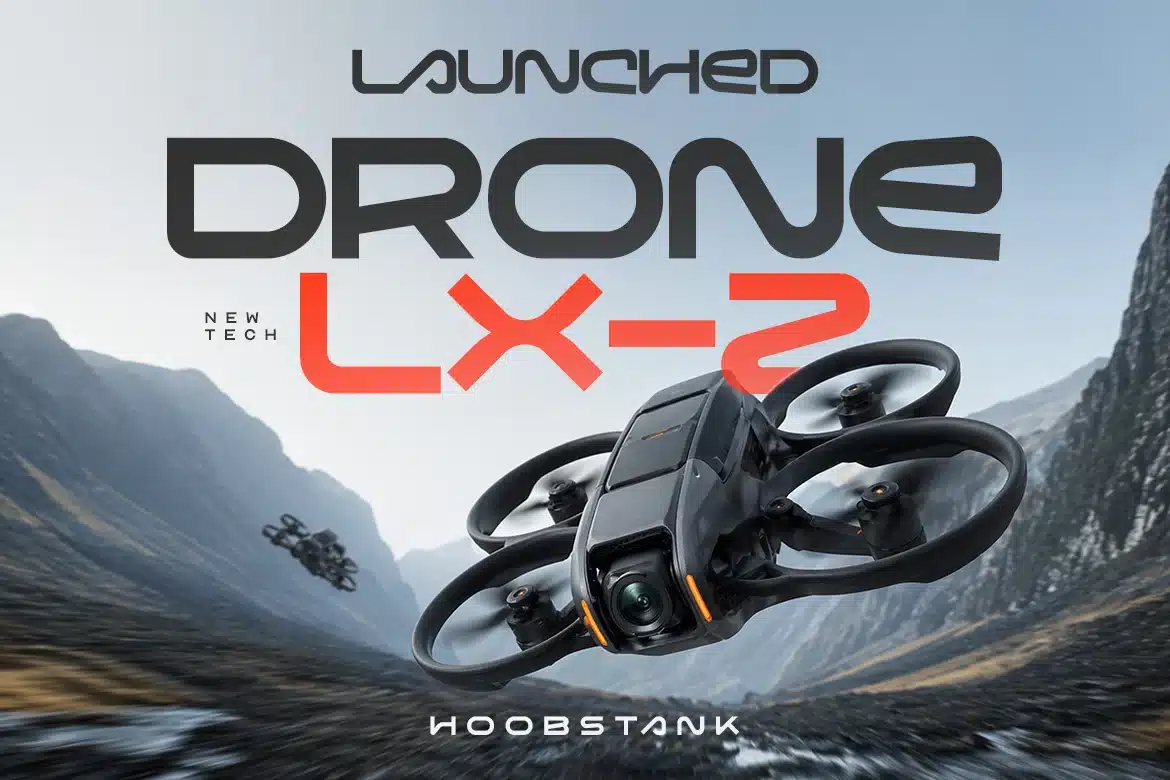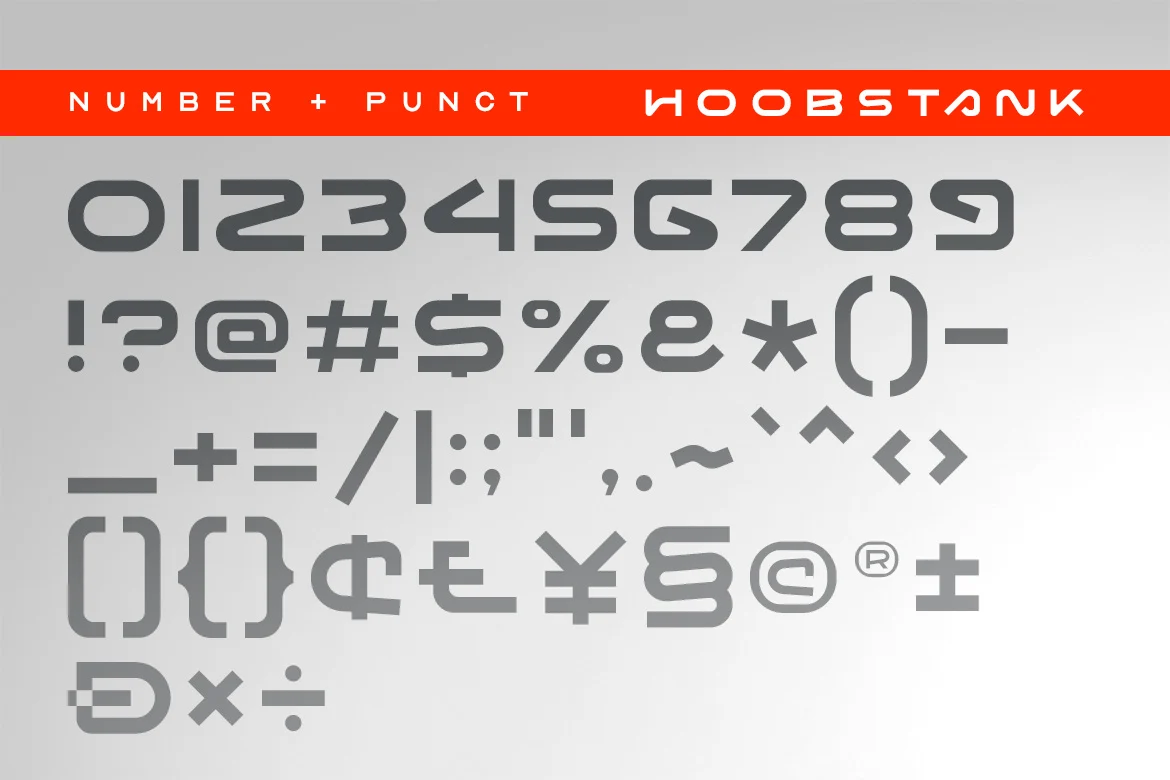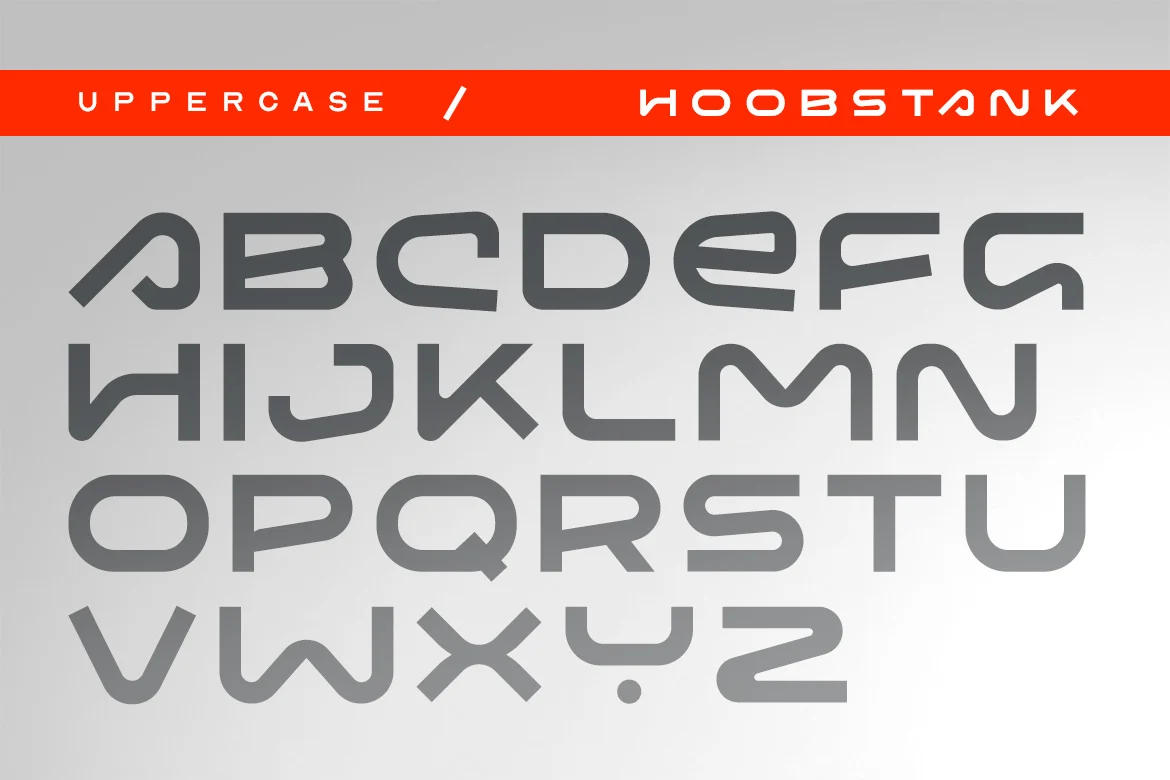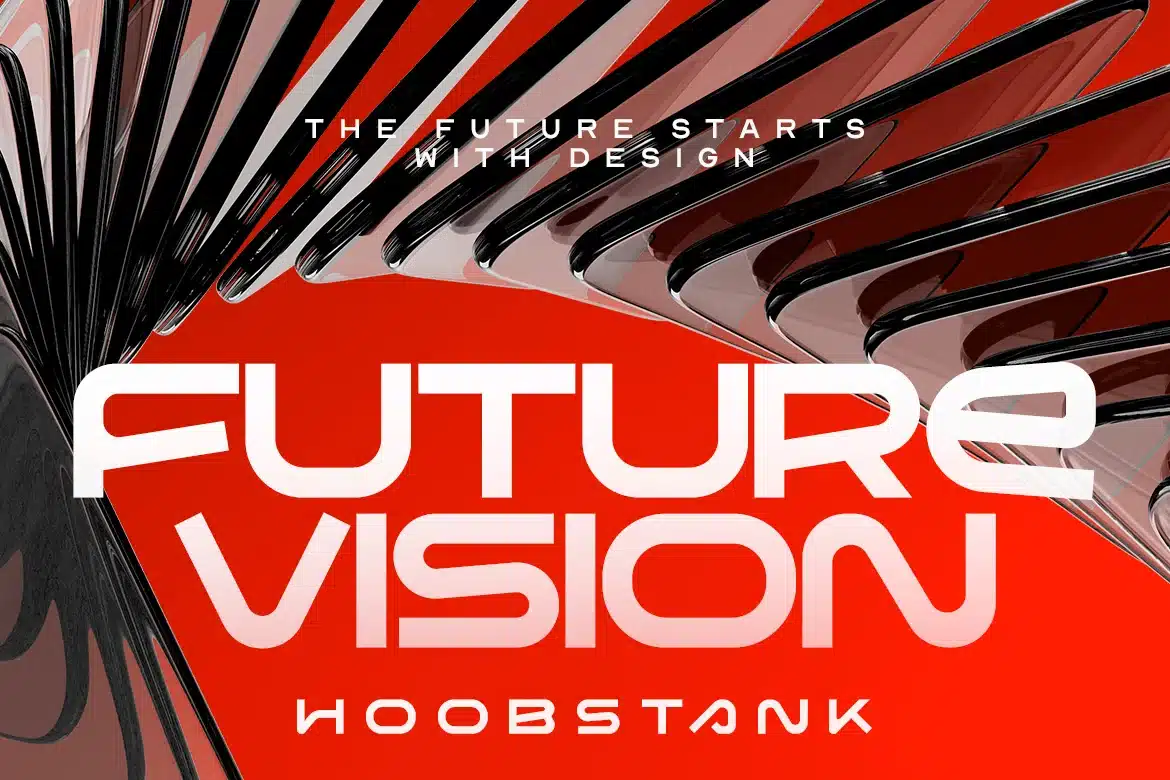
Hoobsstank Regular – Modern Tech Display Font
Hoobs Stank is a futuristic display font crafted for modern tech visuals, cyber-inspired branding, and next-generation digital aesthetics. With its sleek geometric construction and powerful sci-fi attitude, this typeface delivers a sharp, innovative presence perfect for futuristic design projects.